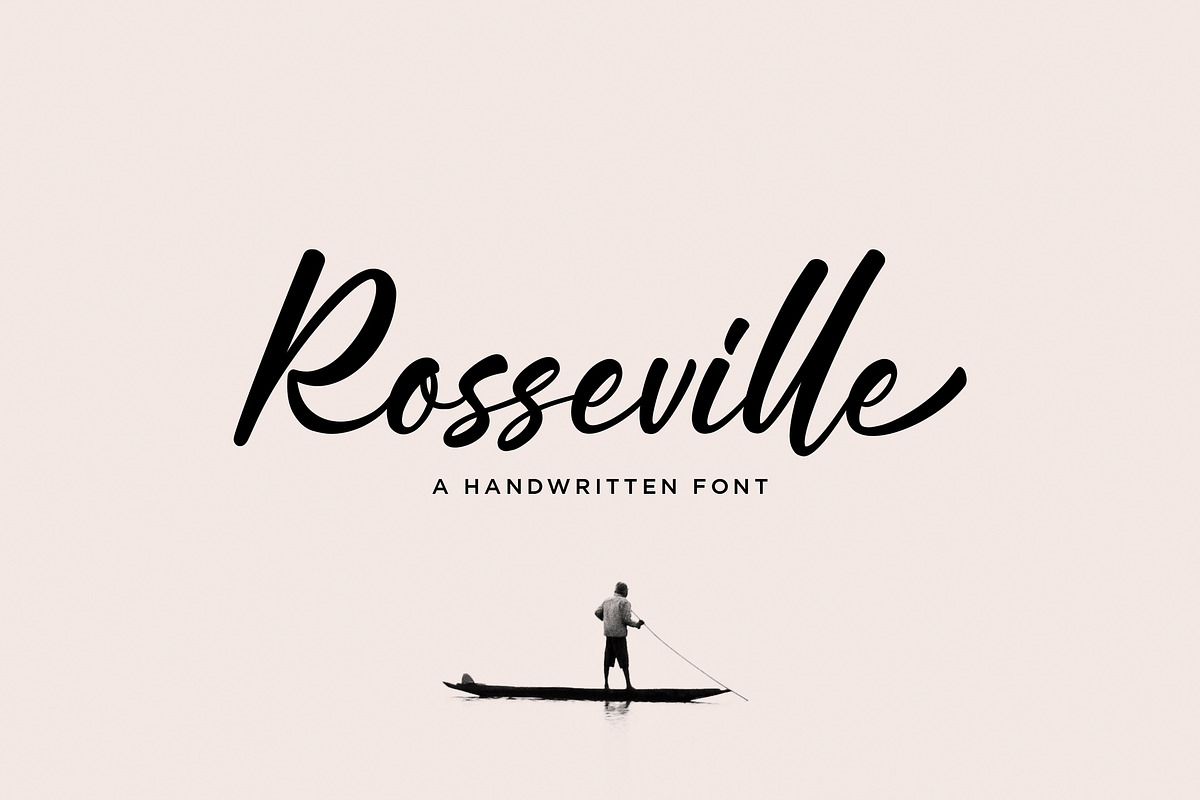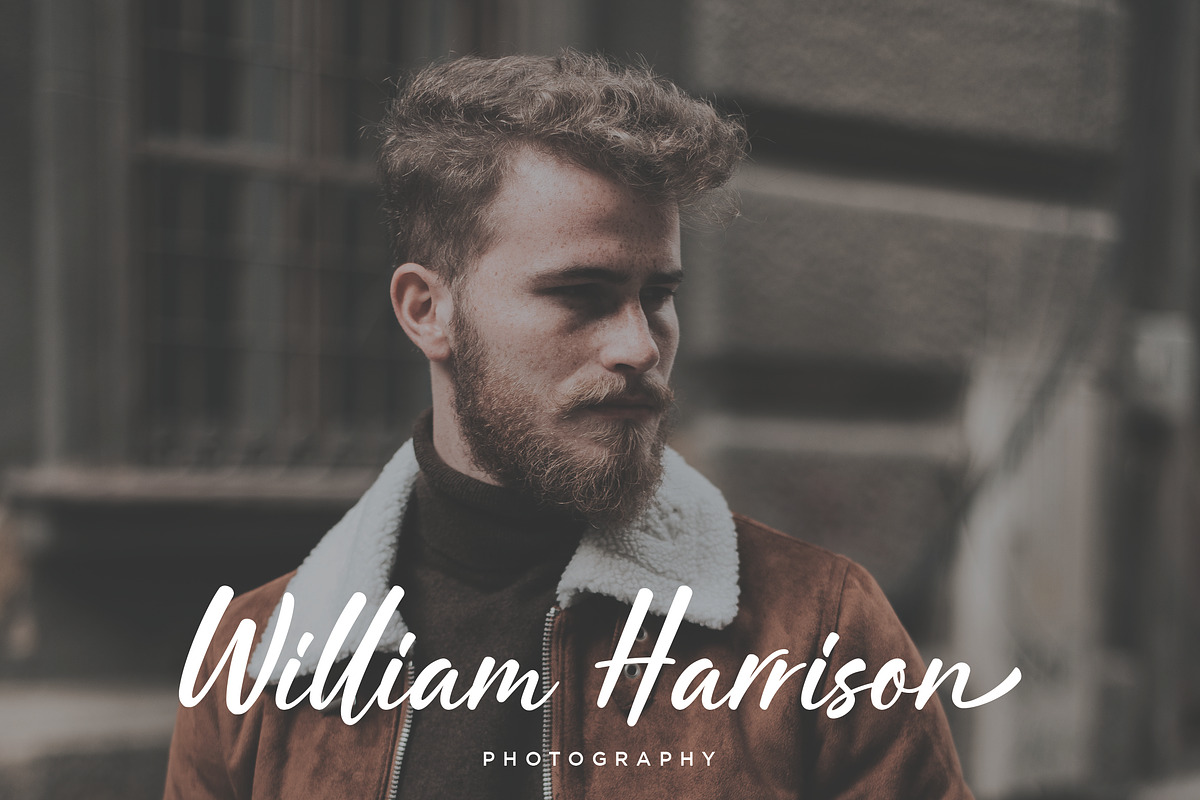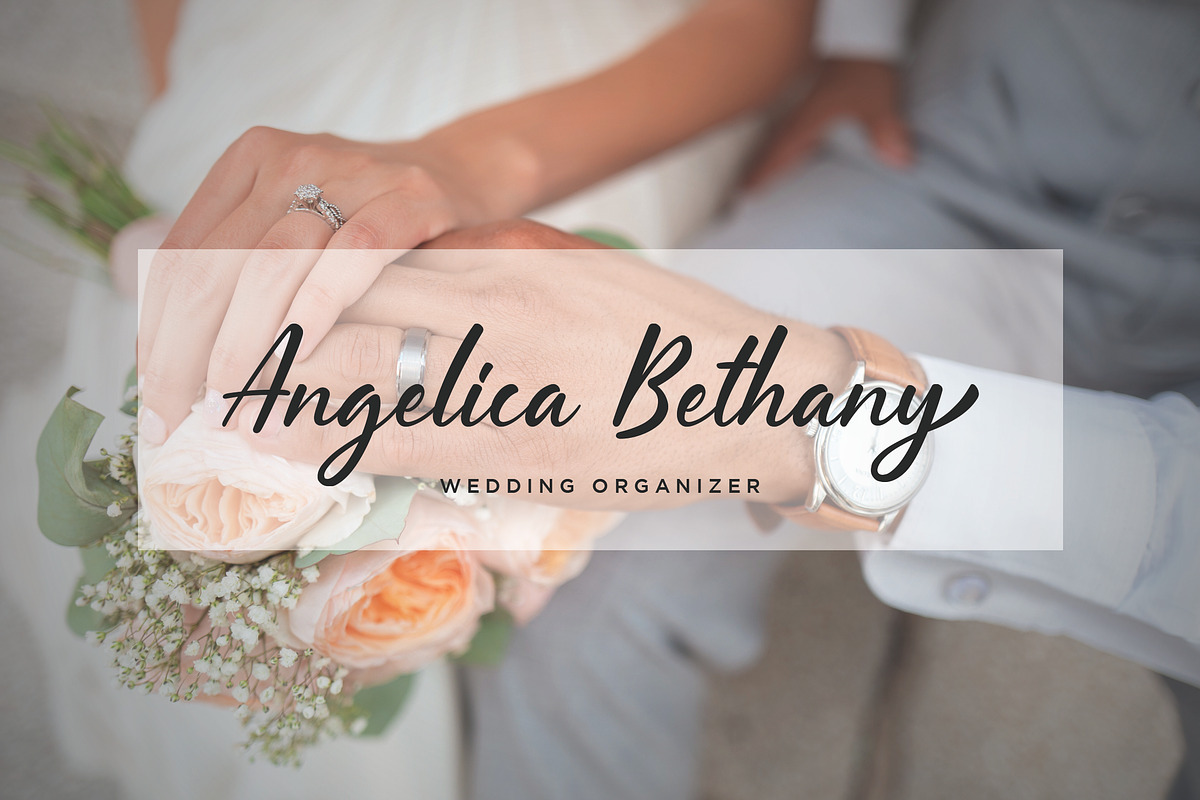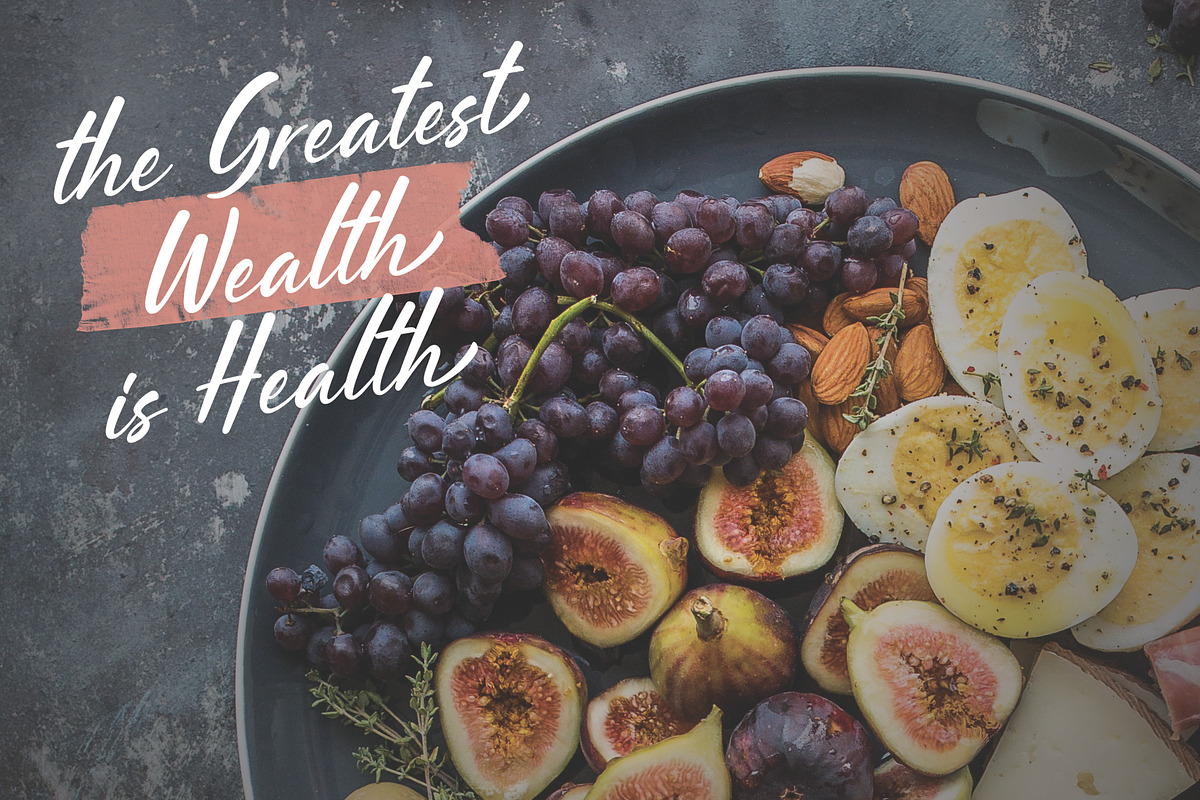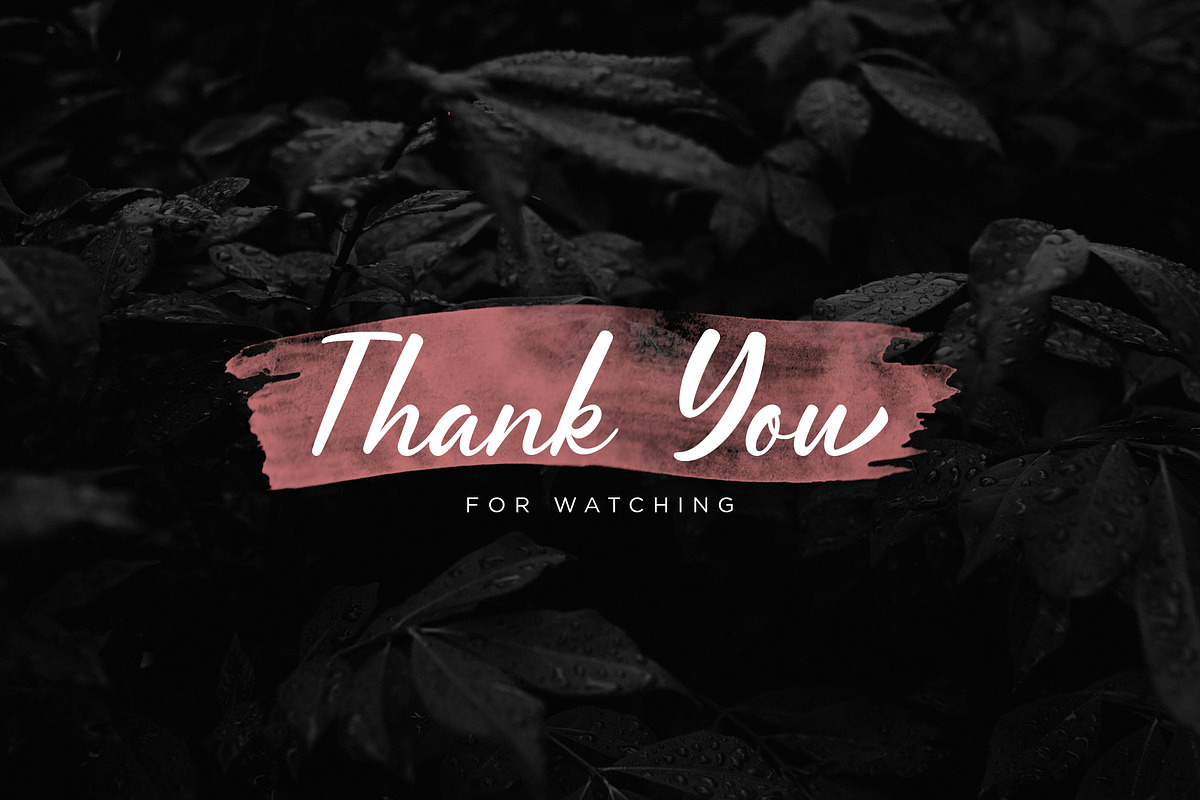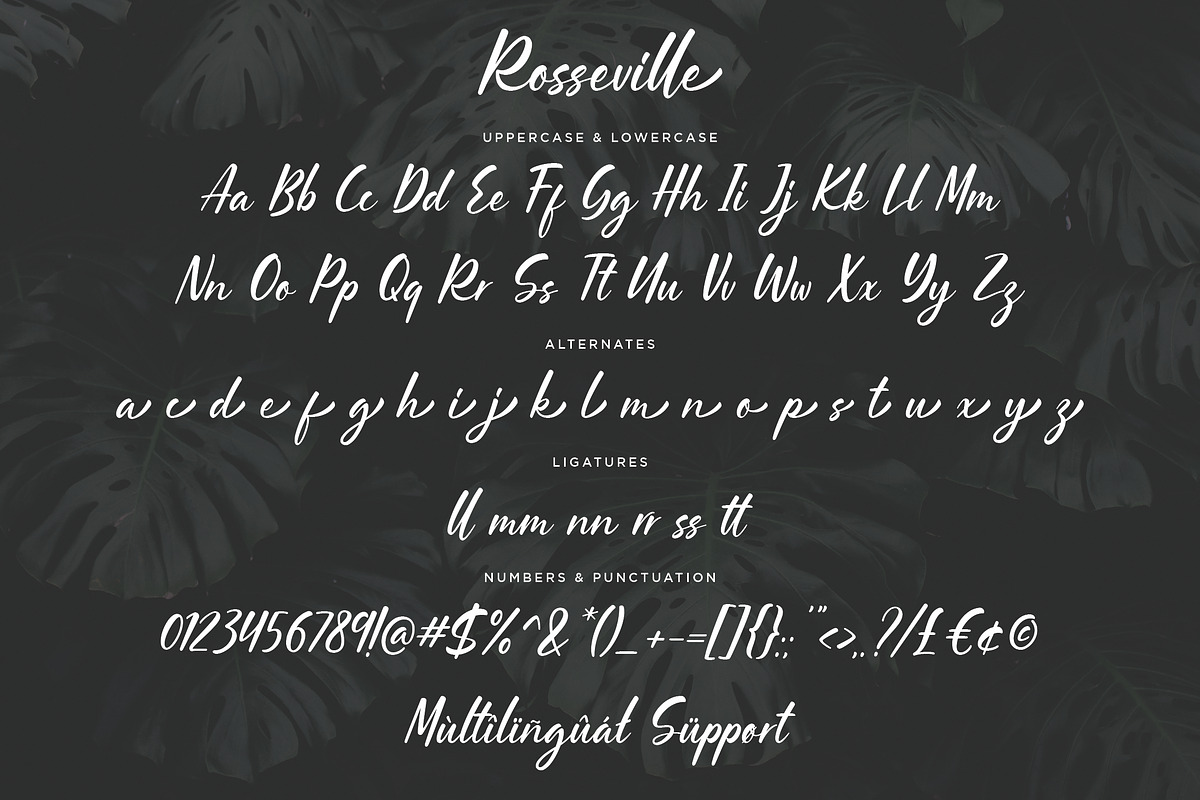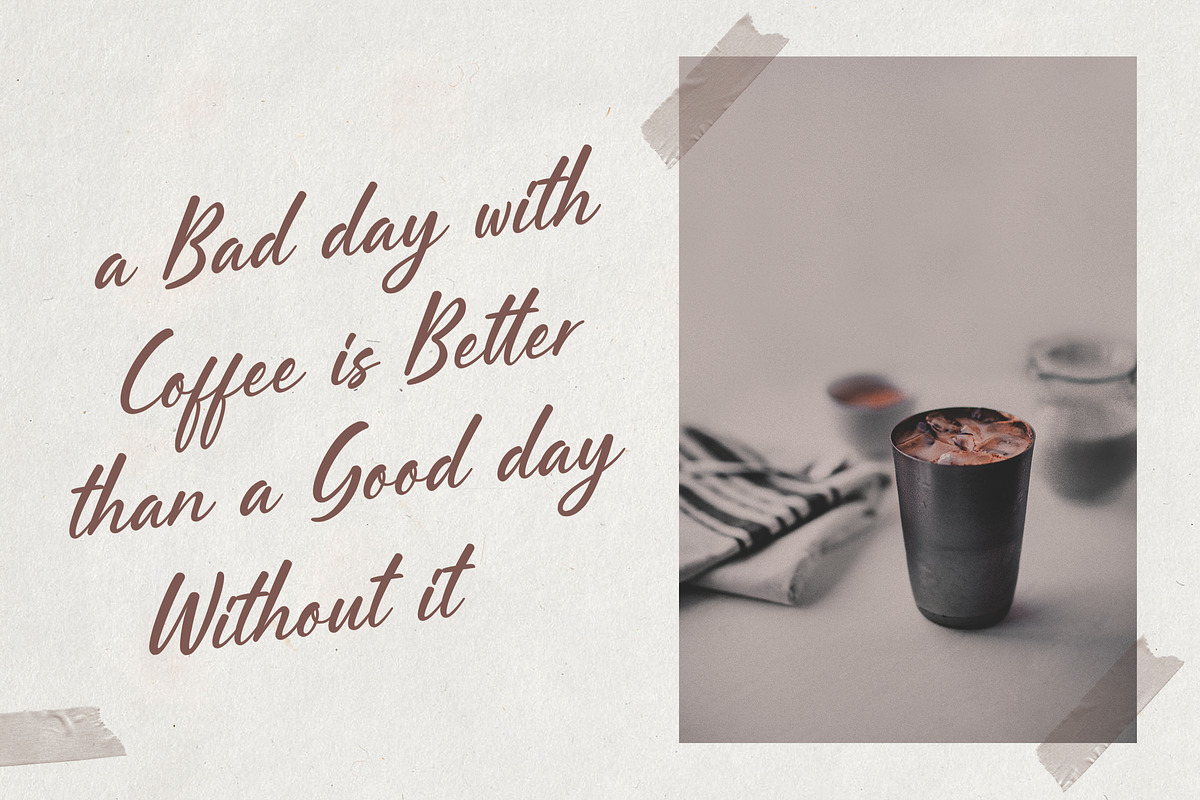
Rosseville - Handwritten Font
Rosseville Available Now ! This year is amazing for our team. A faboulus script font for you with tons of love. Rosseville can make your text stand out - perfect for logos, printed quotes, invitations, cards, product packaging, headers and whatever your imagination holds.
- A-Z Alternates
and Support for Multilingual Support.